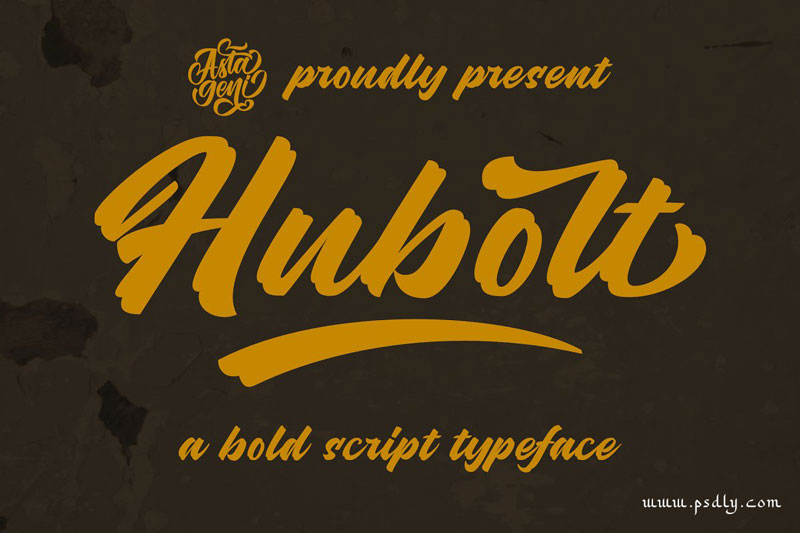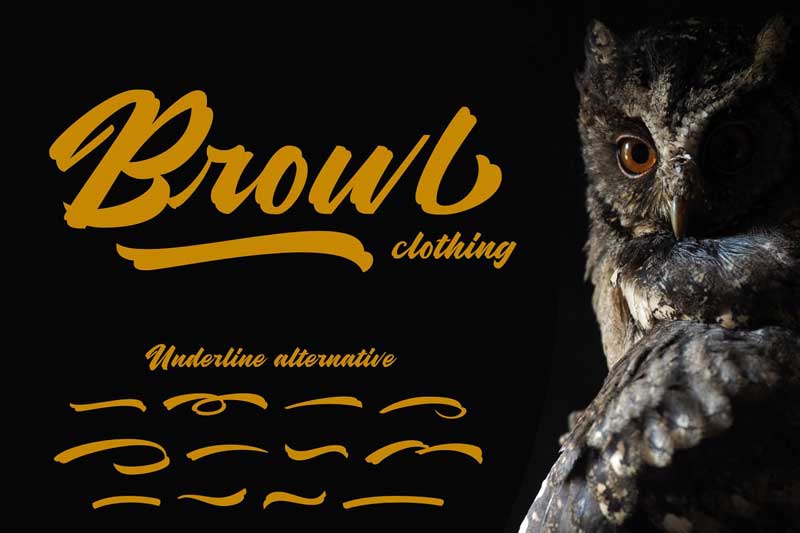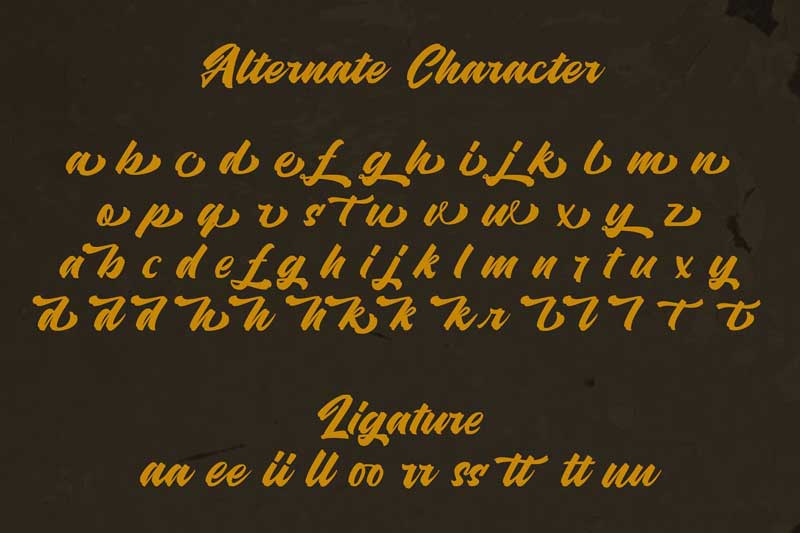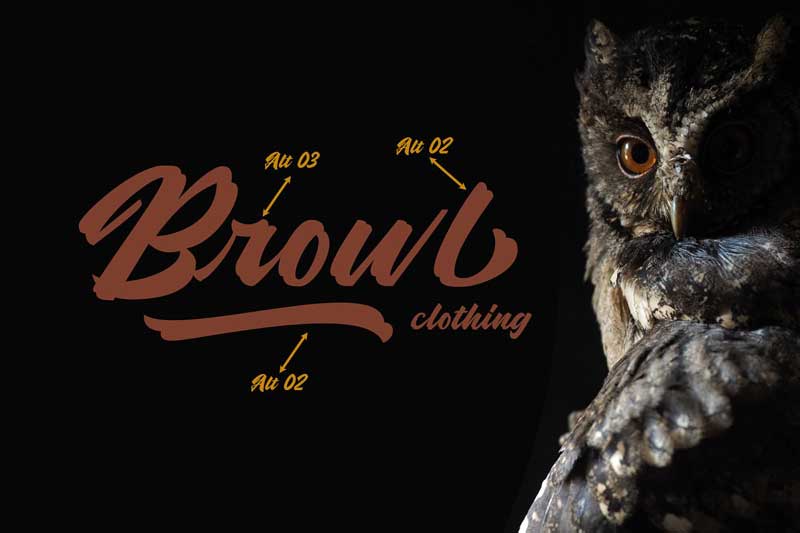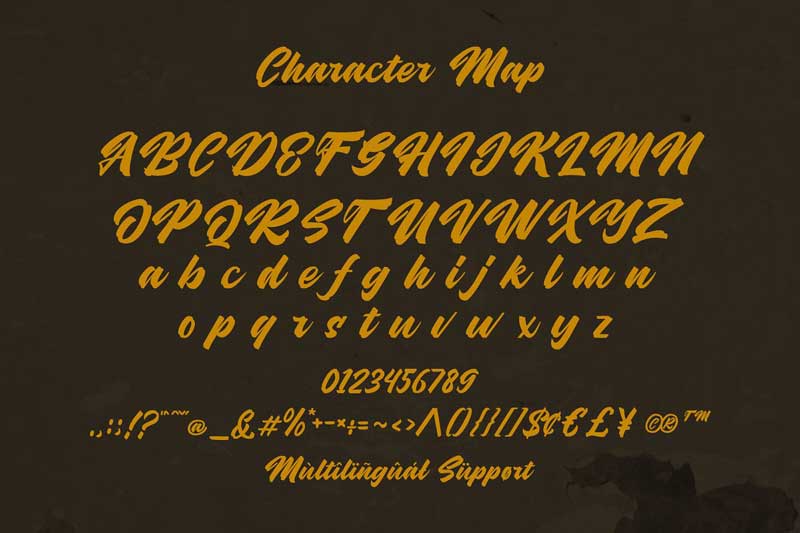
Hubolt Script Font
Hello, This Is Hubolt Script, A brush font made from a sketch from Lyra aqua brush duo. will look awesome and amazing in any way to your latest project. Also checkout Spock Font Family
Hubolt is perfect for many different projects such as logos & branding, invitation, stationery,, social media posts, advertisements, product packaging, product designs, label, photography, watermark, special events or anything.
• Character set A-Z
• Character set a-z
• Support multilanguage glyphs